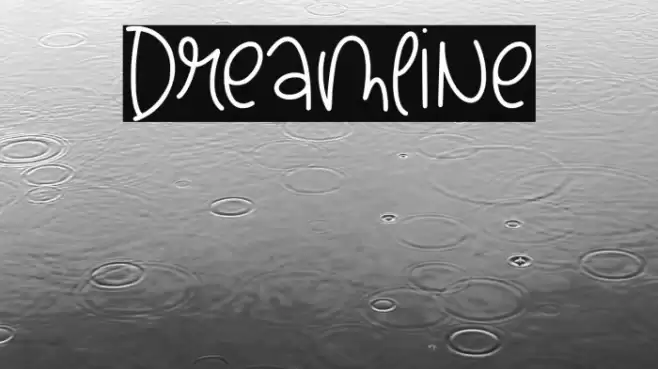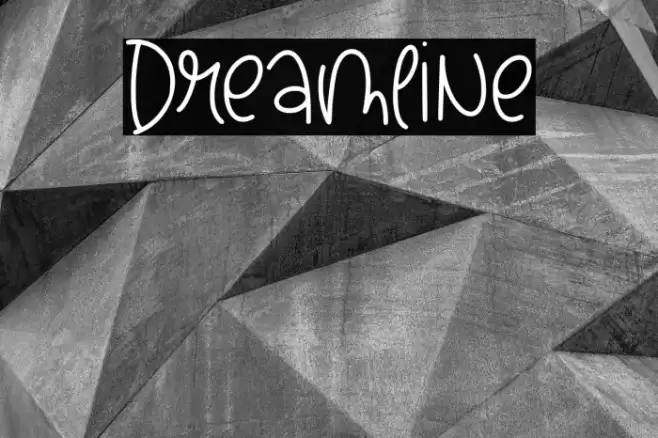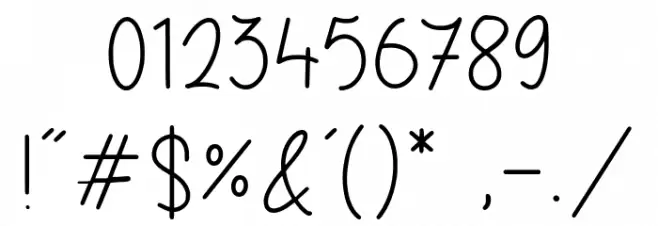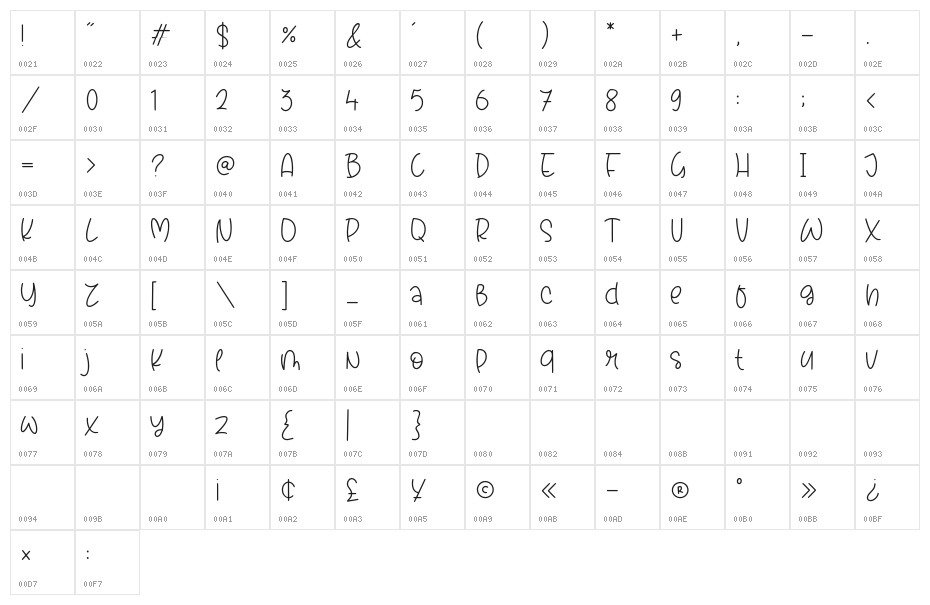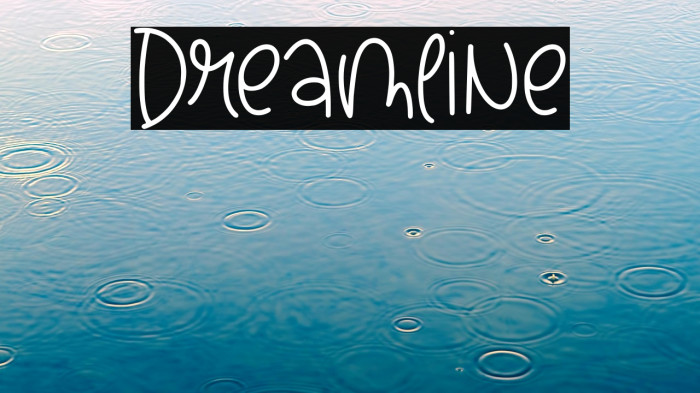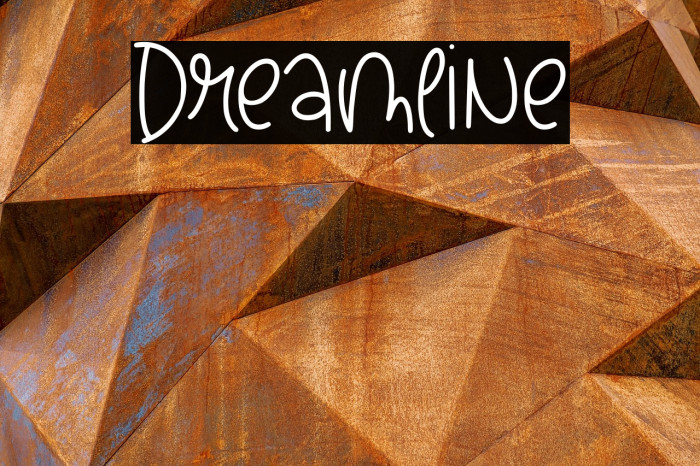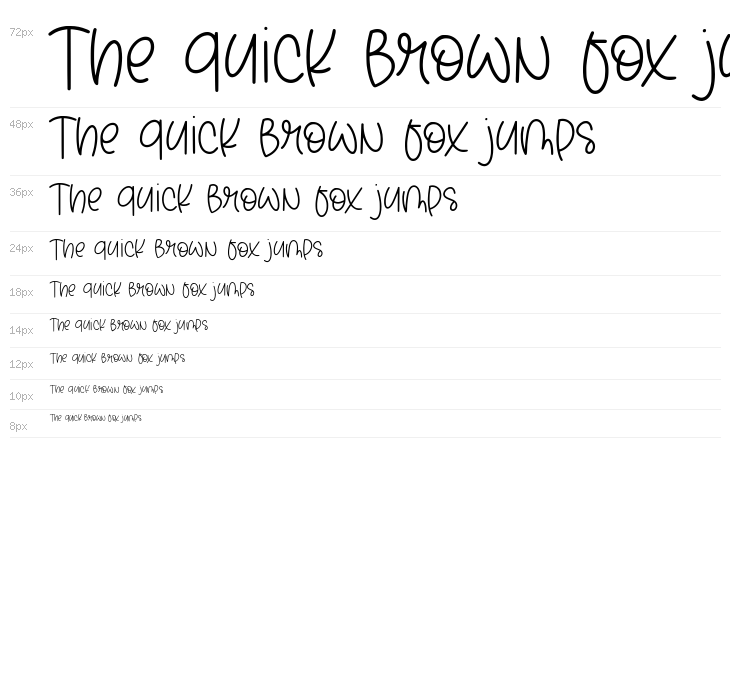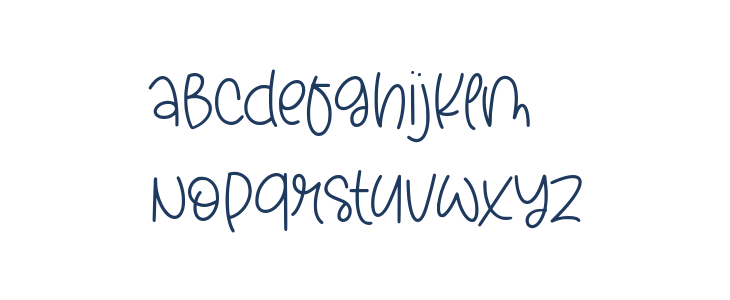
Dreamline Font
Dreamline Description
This font features a playful and whimsical design, characterized by its smooth, flowing curves and slightly irregular letterforms. The uppercase letters are tall and narrow, giving a sense of elegance and height, while the lowercase letters maintain a consistent style with rounded edges and a friendly appearance. The numbers and special characters follow the same playful aesthetic, making the font suitable for creative and informal applications. The overall impression is one of lightheartedness and creativity, perfect for projects that aim to convey a sense of fun and approachability.
A playful, whimsical font with smooth, flowing curves and slightly irregular letterforms from Uncategorized fonts.
- Proposed Projects: Ideal for children's books, greeting cards, playful branding, and creative invitations.
- Overall Style: Playful
- Use Case: Headlines, Logos, Invitations